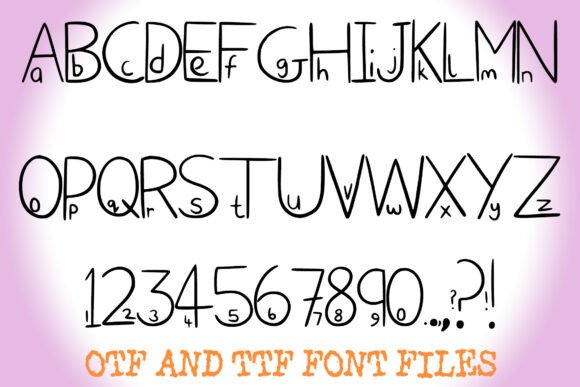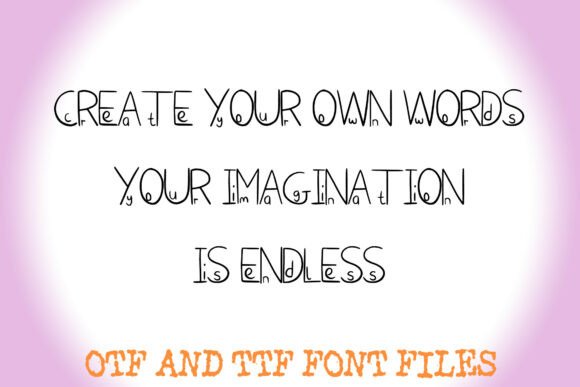
Little Big Letters Font – Free Download
Introduction to Little Big Letters Font
Give your typography a double dose of personality with Little Big Letters Font.
This one-of-a-kind display typeface features a creative โnestedโ design where a small lowercase letter is tucked neatly inside or alongside its uppercase counterpart This hand-drawn font is perfect for creators looking for something truly original.
Key Features of Little Big Letters Font
Why Choose Little Big Letters Font?
Little Big Letters Font offers exceptional quality and versatility, making it a valuable addition to your design toolkit. Whether you’re creating for personal projects or commercial use, Little Big Letters Font delivers professional results.